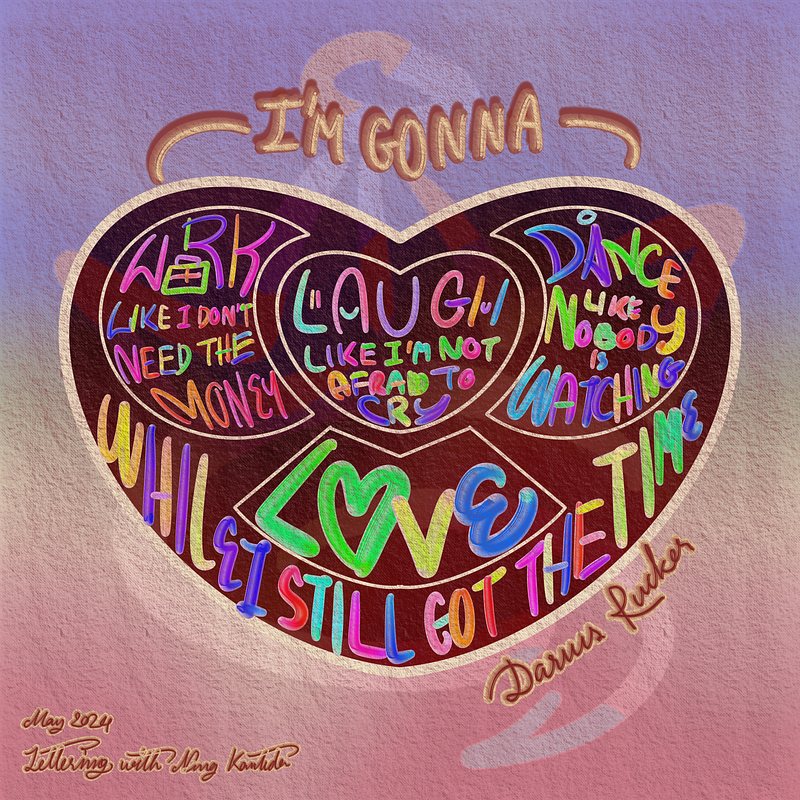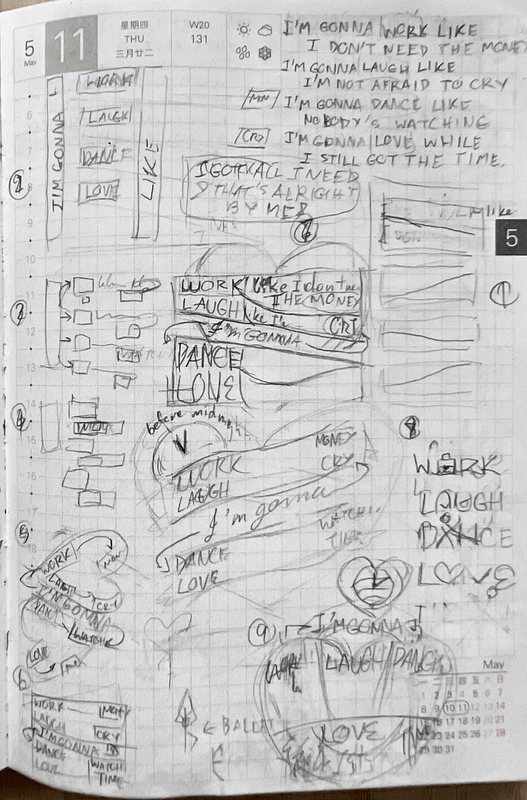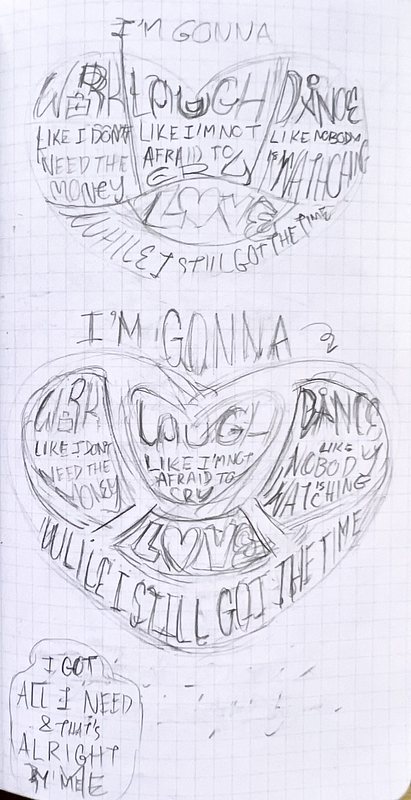
The Lyrics Lettering 00011-While I Still Got The Time by Darius Rucker
The Work
The Inspiration
While I Still Got The Time by Darius Rucker is the song I listen to on my birthdays, to remind myself how to live a life to the fullest, not a life filled with regrets.
No more excuses and no more me doing things wrong
Life is too short baby; I have wasted ours for too long
And baby from now on
I am going to work like I do not need the money
I am going to laugh like I am not afraid to cry
I am going to dance like nobody is watching
I am going to love while I still got the time
The Process
I had a lot of ideas, but ended simplified everything into just a heart shape. So, the keywords like "Work", "Laugh", "Dance", and "Love while I still got the time." get the chance to shine the most.
I like the design.
Unfortunately, I only got like 40 minutes to work on the design before some good news came that made me spend the whole day on the road. So I don't have to truly finish it.
I didn't do the song justice, so I'll revisit the design in the future.